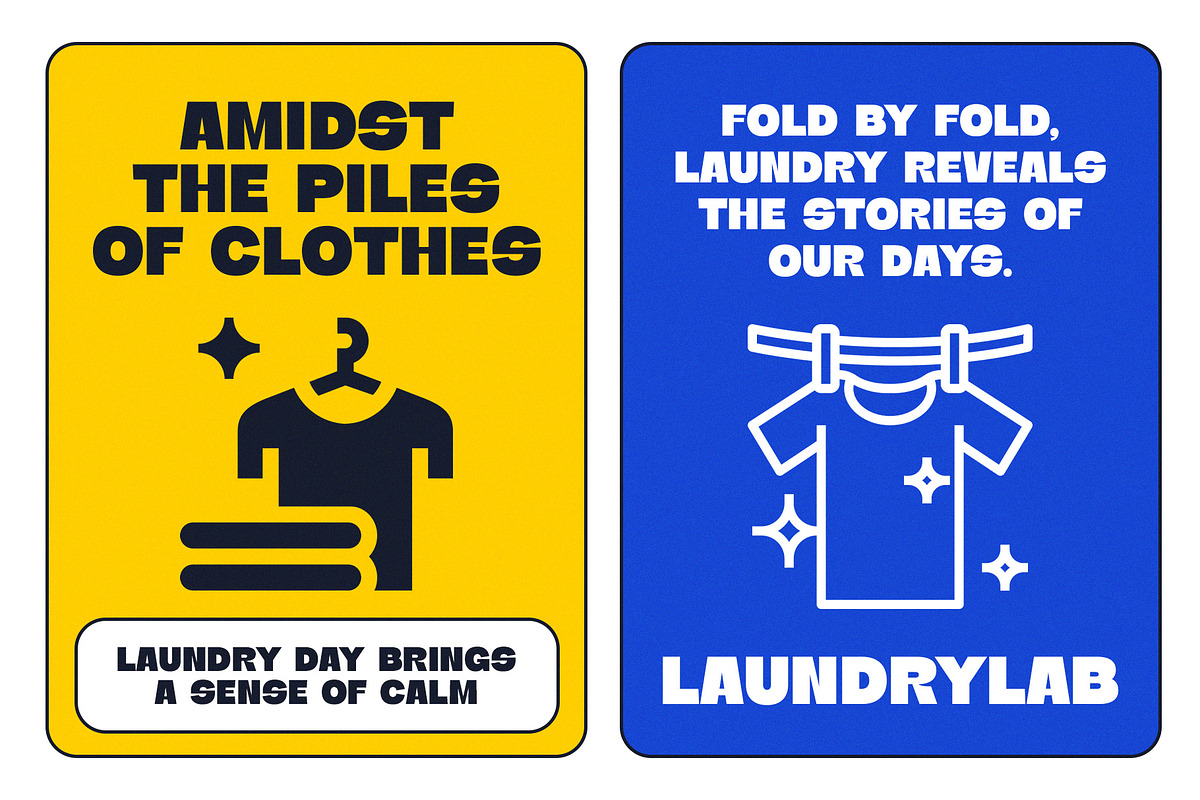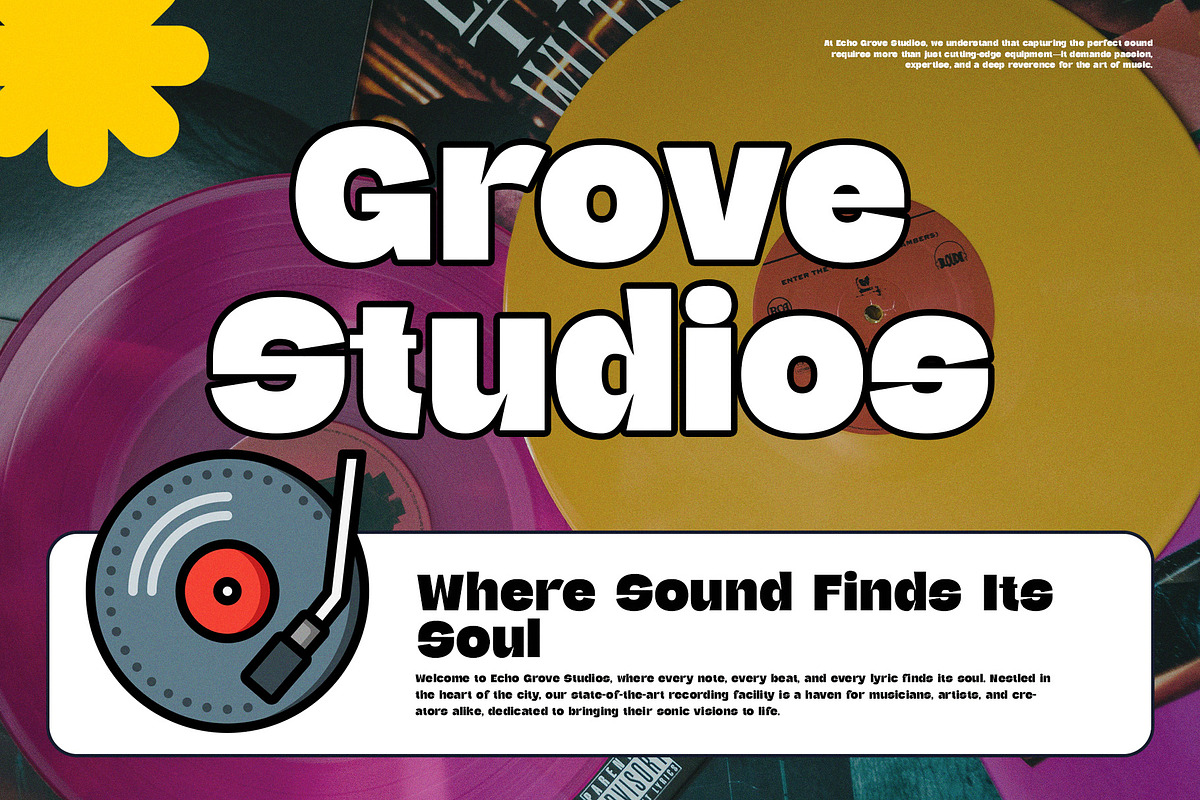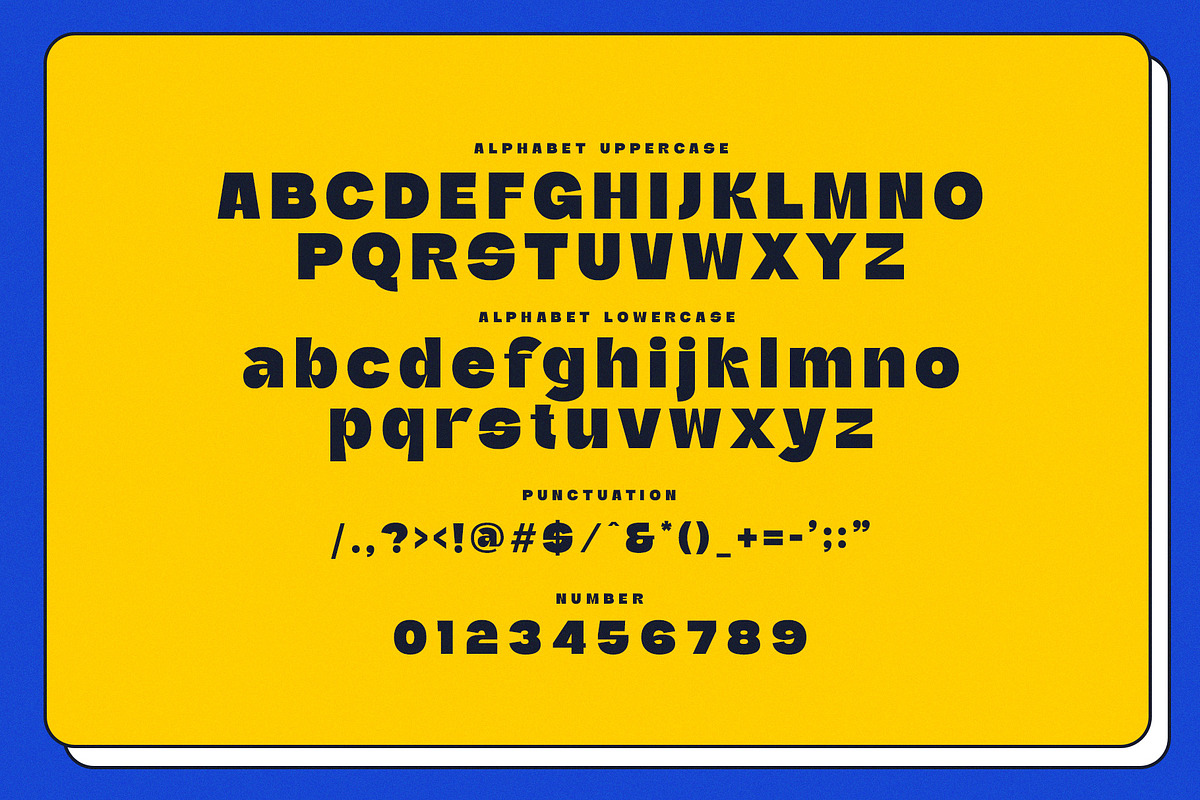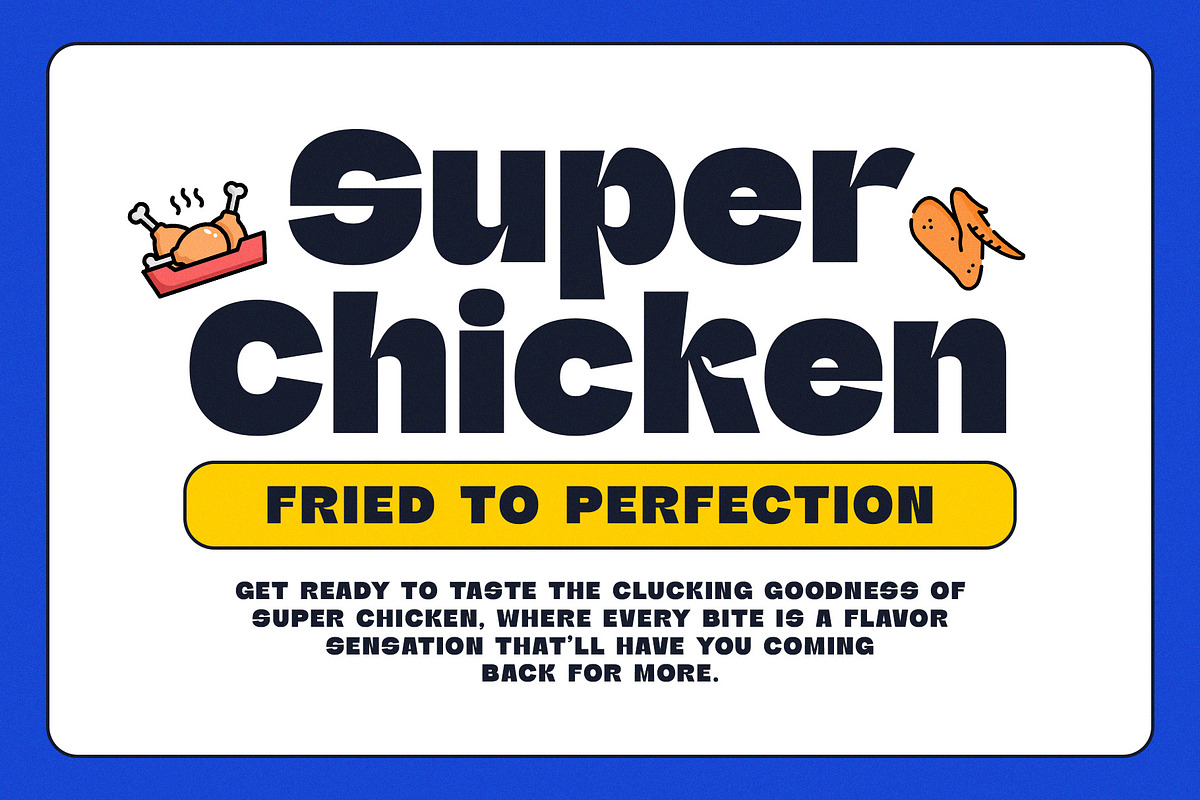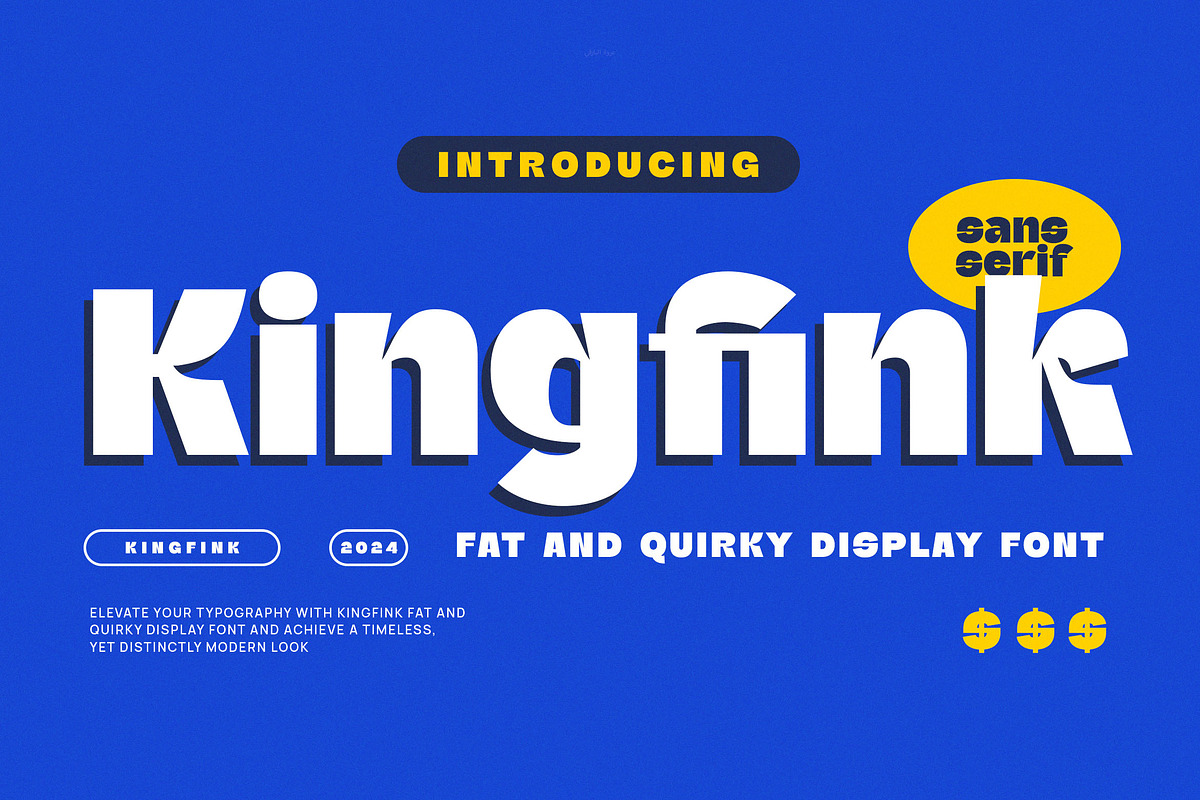
Kingfink - Modern Display Sans Serif
Introducing Kingfink - Modern Display Sans Serif. Kingfink is a modern and simple font, best used as a display for headings, logos, branding, magazines, product packaging and invitations. Thank you.